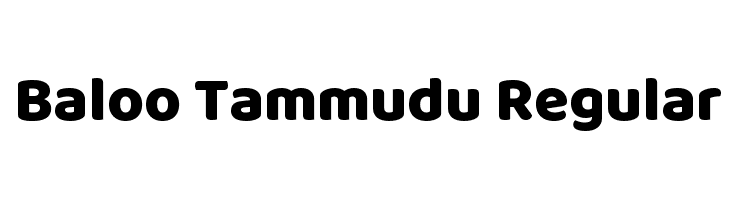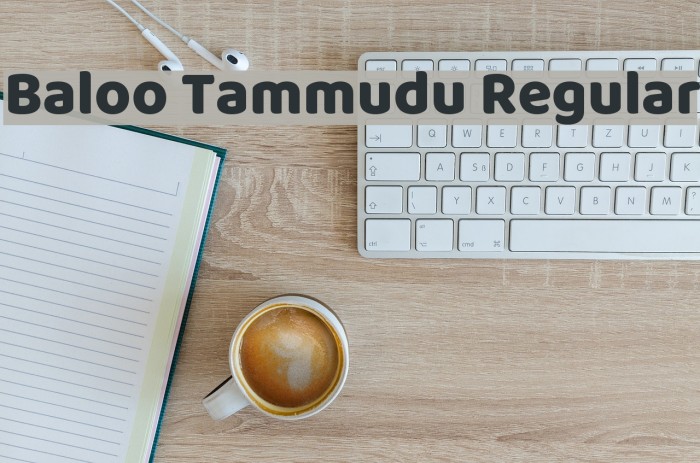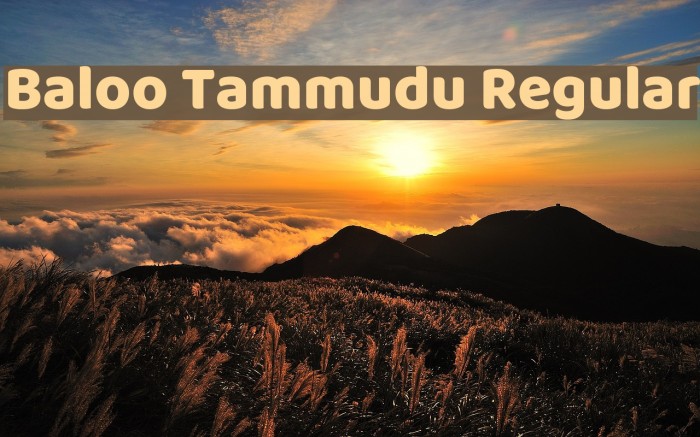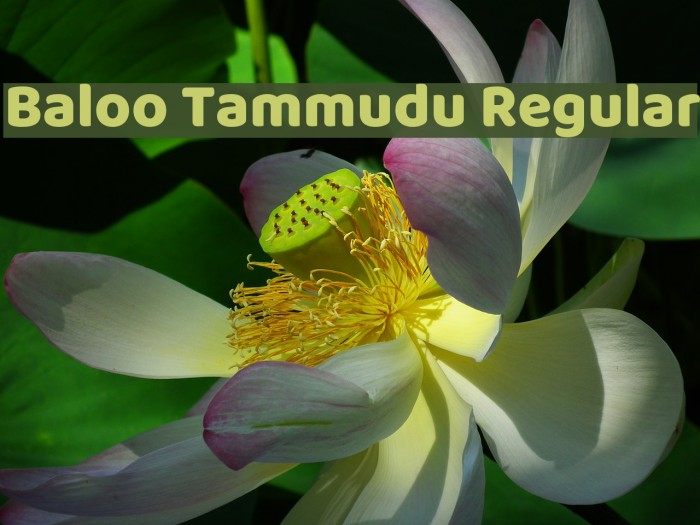
Baloo Tammudu Regular Font
This font features a playful and rounded design, characterized by its bold and smooth curves. The letters are evenly weighted, providing a consistent and friendly appearance. Its rounded edges and uniform stroke widths give it a modern and approachable feel, making it suitable for a variety of applications. The font maintains a balanced structure, ensuring readability while adding a touch of whimsy. Its design is versatile, allowing it to be used in both digital and print media, appealing to audiences of all ages.
A playful, rounded font with bold, smooth curves and a modern feel.
• Proposed Projects: Ideal for children's books, playful branding, casual invitations, and digital content aimed at a youthful audience.
• Category: Sans-Serif
• Bold: Yes
• Italic: No
• Weight: Bold
• Width: Normal
• Character Spacing: Normal
• Contrast: Low
• Overall Style: Modern
• Use Case: Headlines, Logos, Digital content